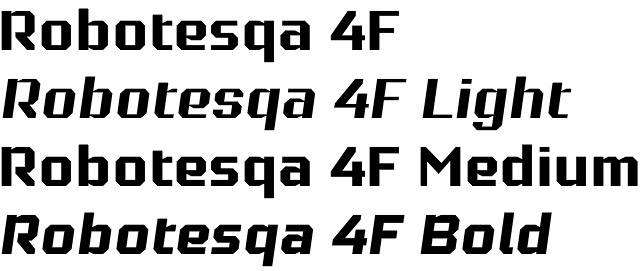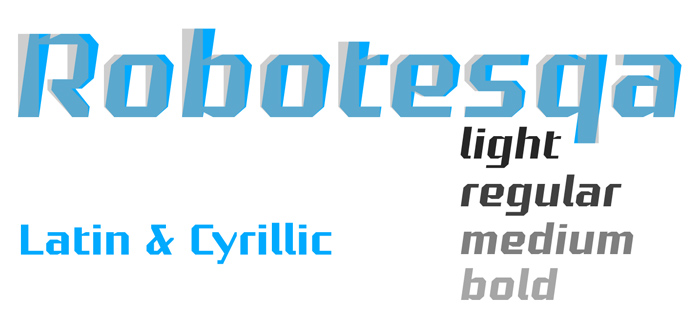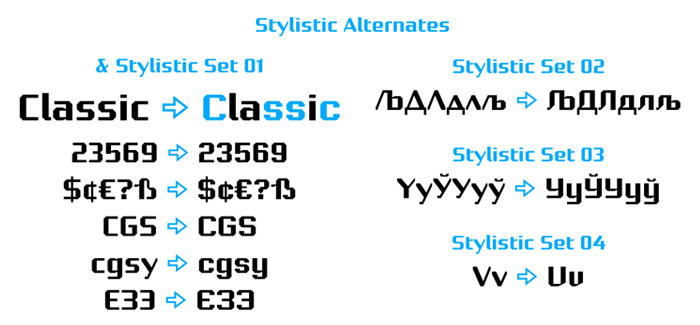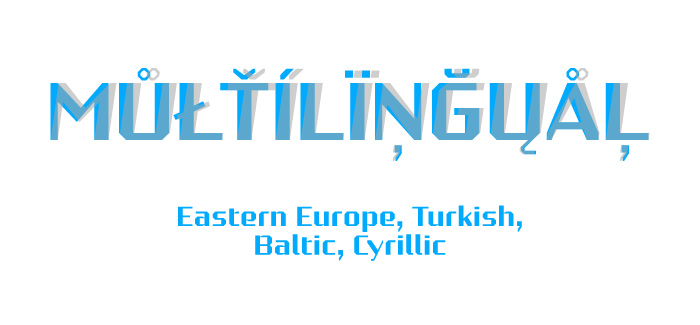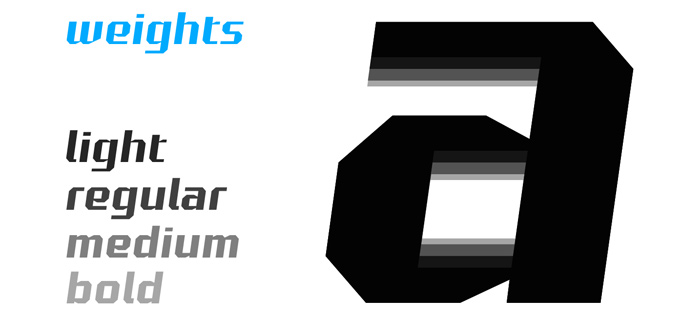
Robotesqa 4F font
Robotesqa 4F font by the very productive and talented Ukrainian type designer Sergiy Tkachenko (Condesqa 4F font, Zantiqa font, Model 4F font, to name only a few of the whole multitude by 4th february type foundry) is a solid and stylish Sans Serif font family with strong presence. It consists of eight fonts in four weights – Light, Regular, Medium, and Bold, all with the corresponding Italics.
The idea of creating the Robotesqa 4F font came in 2010 following the design of a desktop computer game (unpublished) typeface which displayed various statistical information onscreen about passing game levels. All the basic Latin and Cyrillic glyphs were created in 2010, and at the end of 2013 more glyphs (including arrows, geometrical shapes, etc.) and skillfully crafted stylistic alternates were added.
Robotesqa 4F font provides OpenType features and multilingual support – both for Latin and Cyrillic languages.
Supported languages: Albanian, Basque, Belarusian, Bosnian, Breton, Catalan, Croatian, Cyrillic, Czech, Danish, Dutch, Esperanto, Estonian, Faroese, Finnish, French, Frisian, Galician, German, Hungarian, Icelandic, Italian, Lithuanian, Malagasy, Maltese, Norwegian, Polish, Portuguese, Romanian, Russian, Serbian, Slovak, Slovenian, Spanish, Swedish, Turkish, Welsh